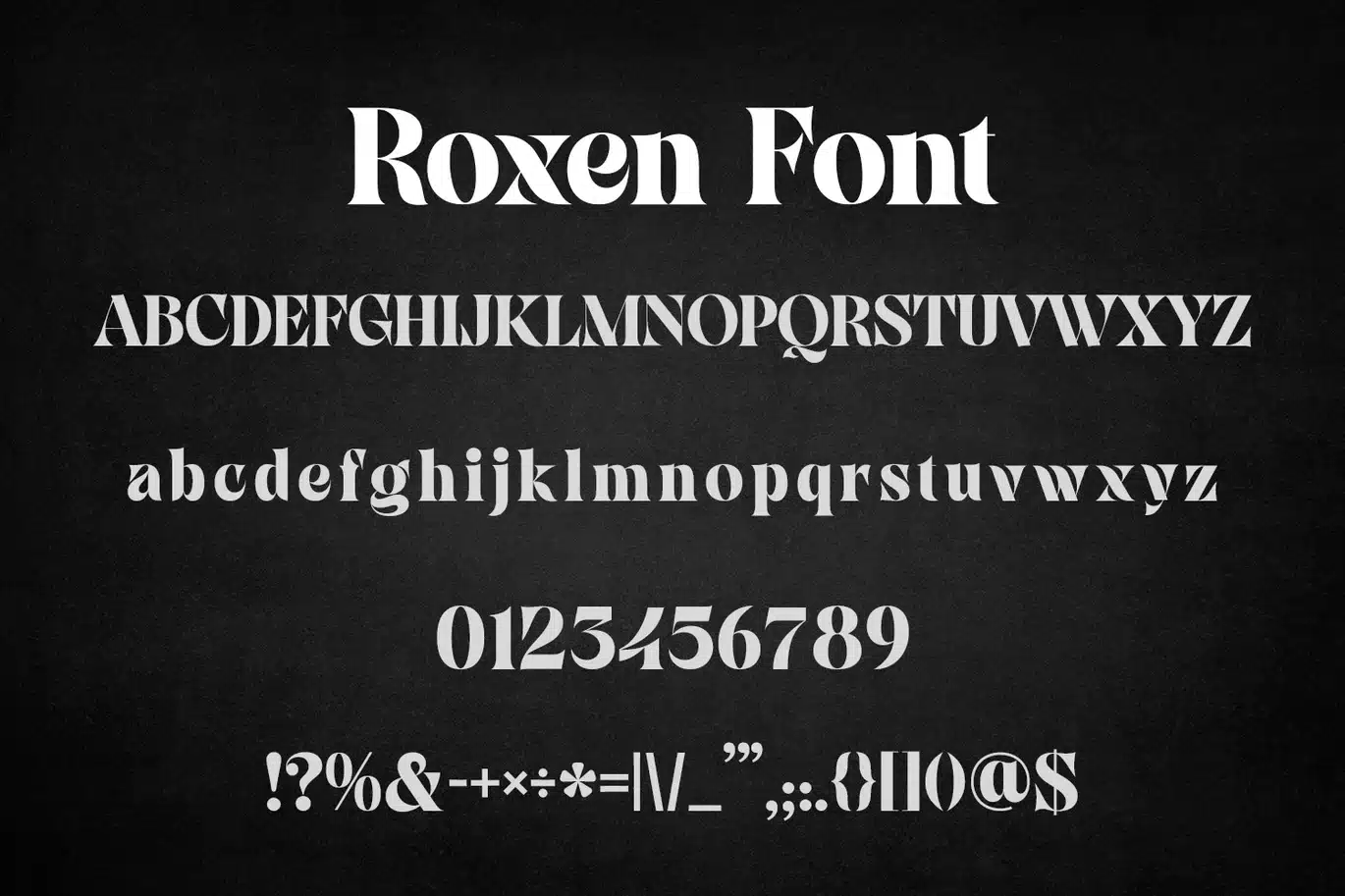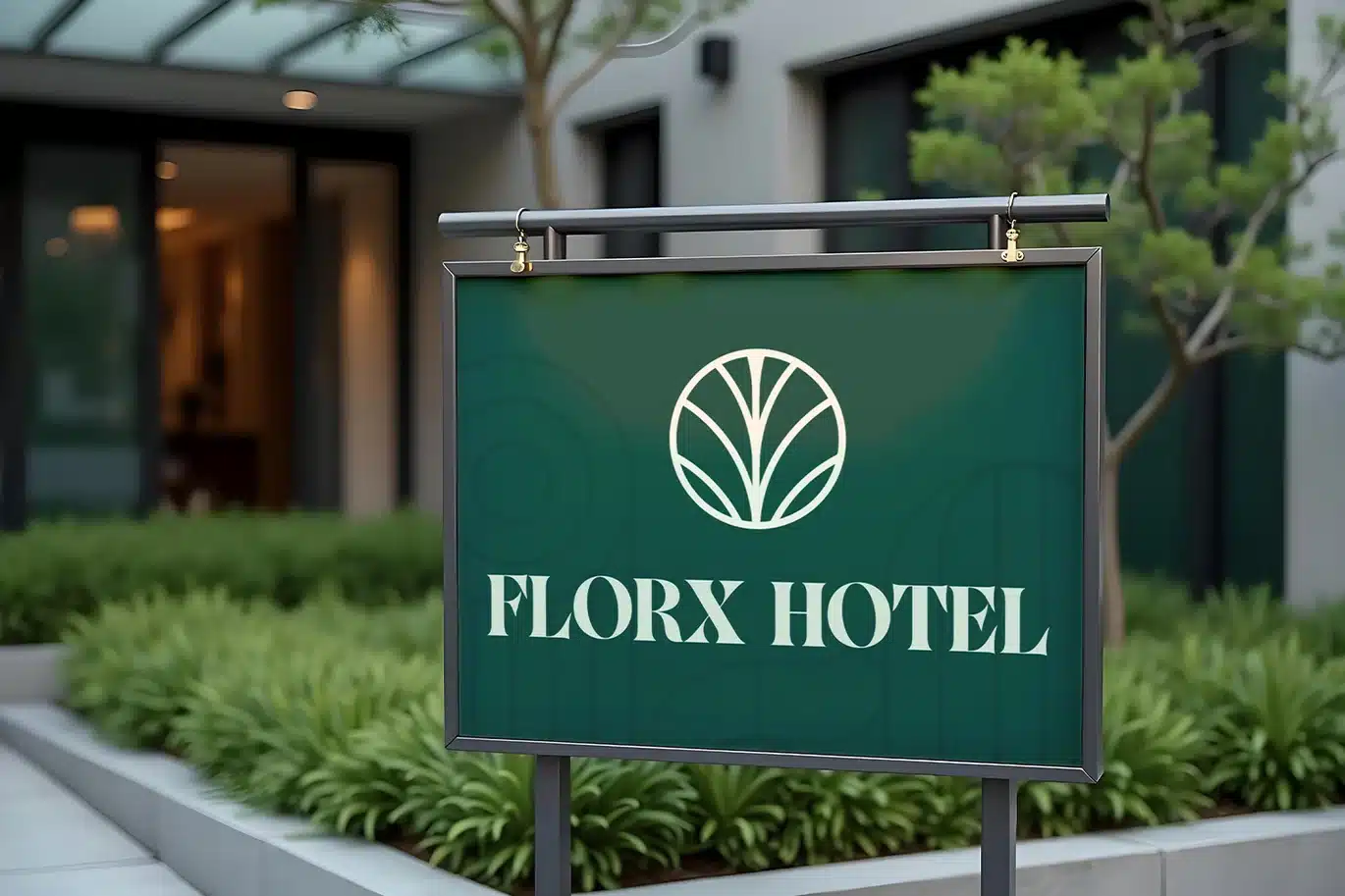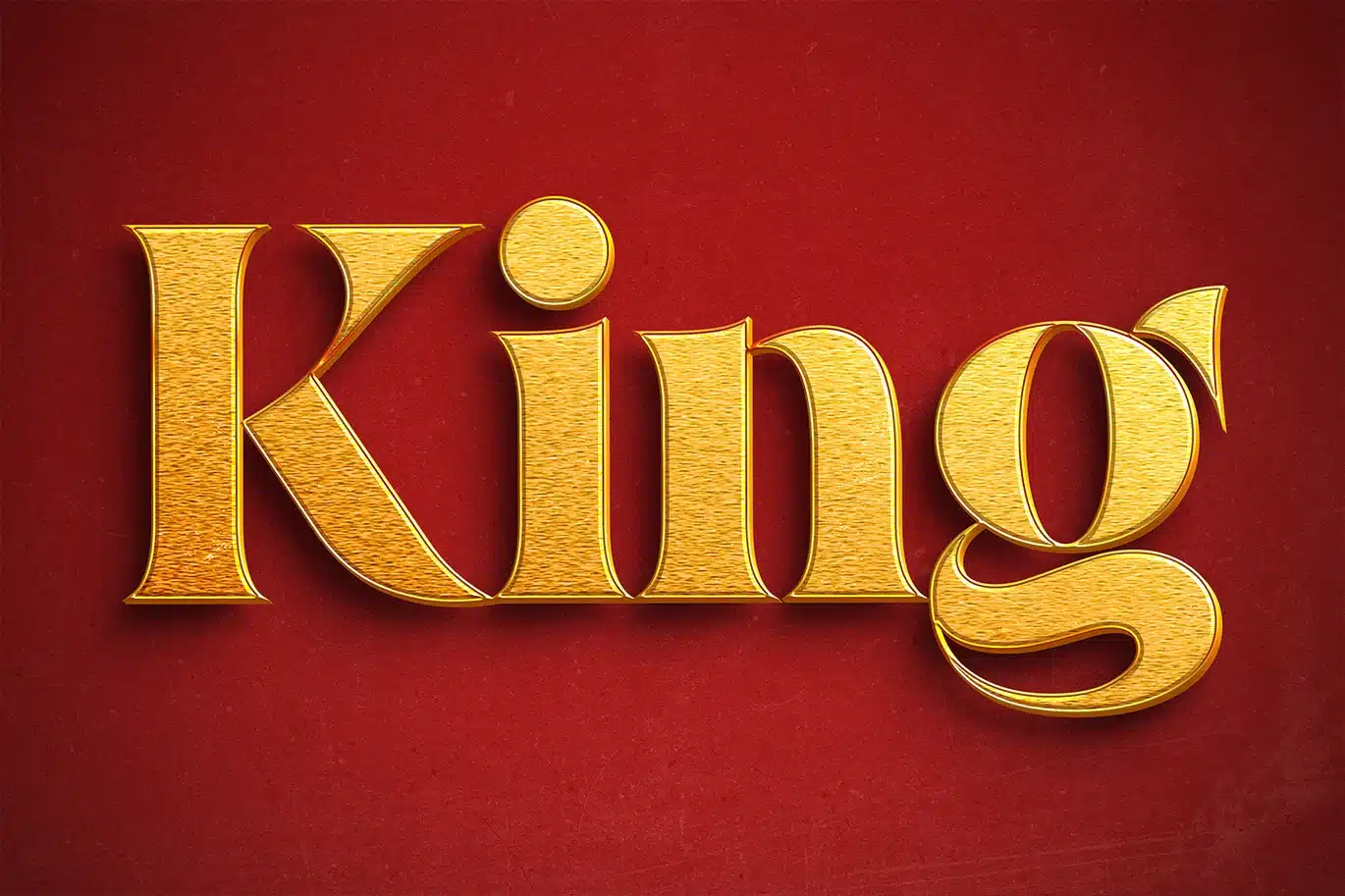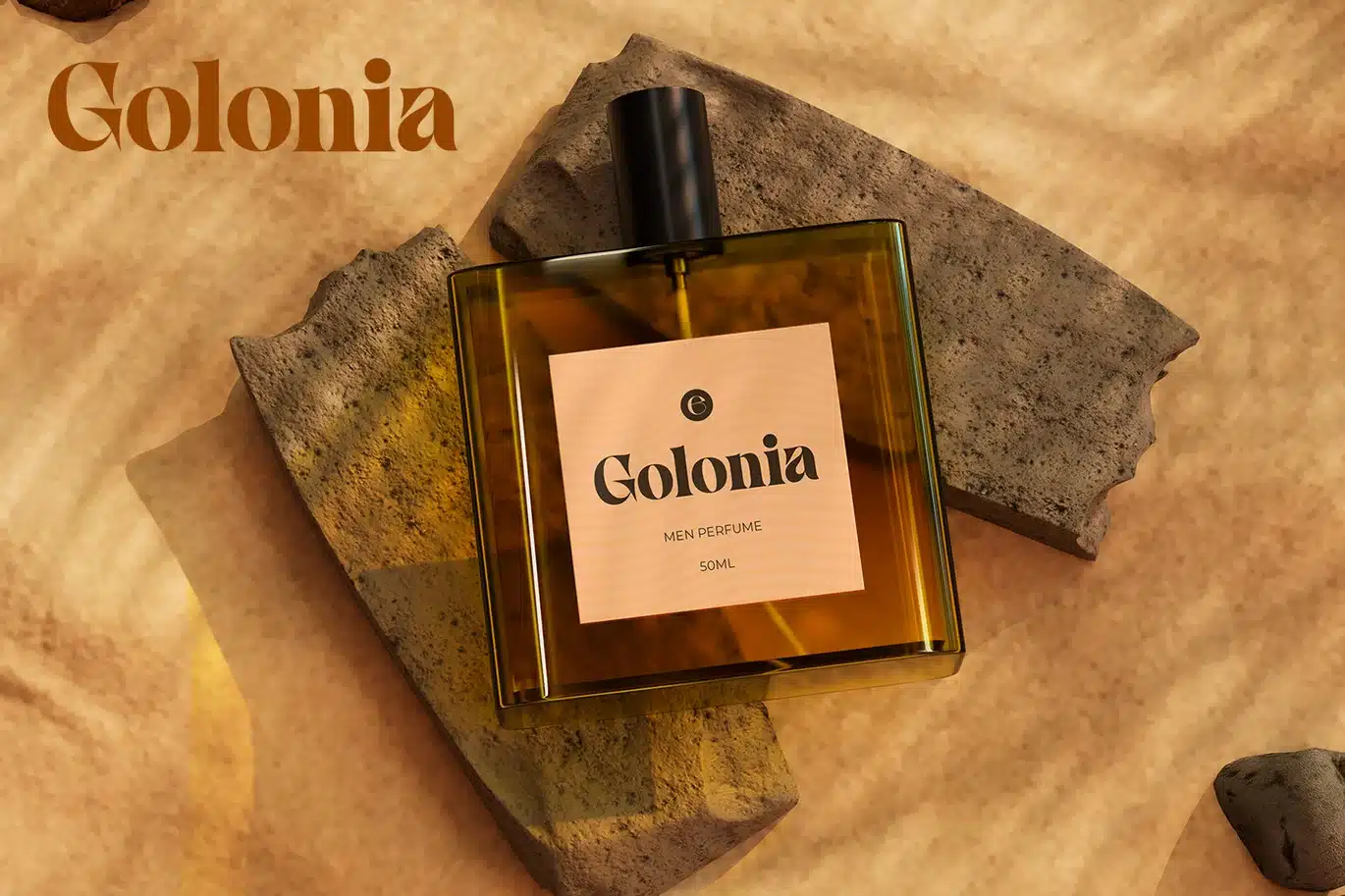
Roxen – Display Typeface Font
Roxen - Decorative Font
Roxen is a premium decorative font designed to deliver a strong and elegant visual impact. This luxury typeface features a unique and bold structure, making it the best choice for high-end branding, premium product packaging, modern magazine headers, and striking posters. Whether you are creating a cinematic movie title, an exclusive editorial layout, or luxury cosmetics branding, Roxen provides a professional aesthetic to elevate your creative projects.
Featuring clean lines and distinct character shapes, this best-in-class display font offers exceptional versatility for graphic designers. It is perfectly suited for elegant corporate identities, elegant wedding invitations, food packaging, and bold typography. With its strong presence and sophisticated details, Roxen ensures your designs will stand out with a truly premium and high-quality feel.
- Unique letterforms